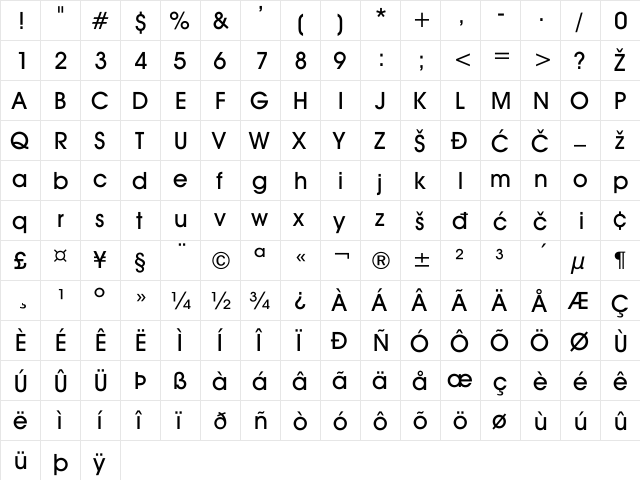
Noveau Riche Medium-Normal Regular
Design Context for Noveau Riche Medium-Normal Typeface
Noveau Riche Medium-Normal is a composed and adaptable typeface that performs quietly and consistently across a wide range of design contexts.